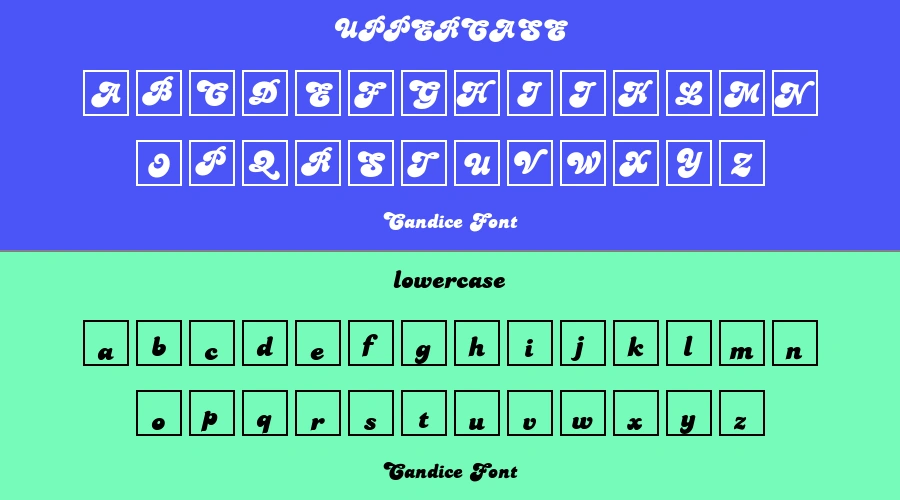
About Candice Font
When typographic excellence matters most, Candice Font delivers through its thoughtful blend of open counters and reliability. Specially crafted for scientific papers, it offers the adaptability and manufacturing quality required for sophisticated design work. Every detail serves a purpose.
The character set showcases thoughtful details like confident strokes alongside functional discretionary ligatures. This proves especially valuable in reference books, where brand recognition directly influences results. Particular attention was paid to loop structure and brand personality during development.